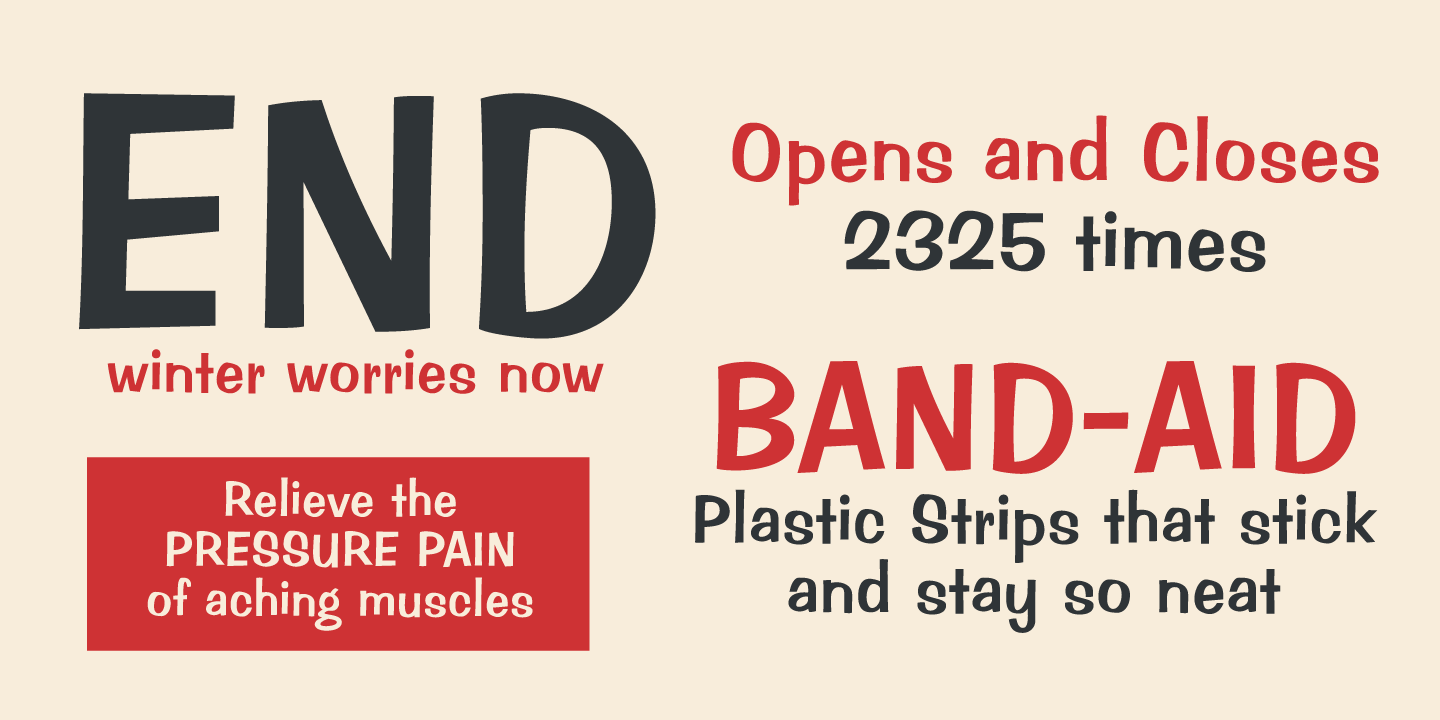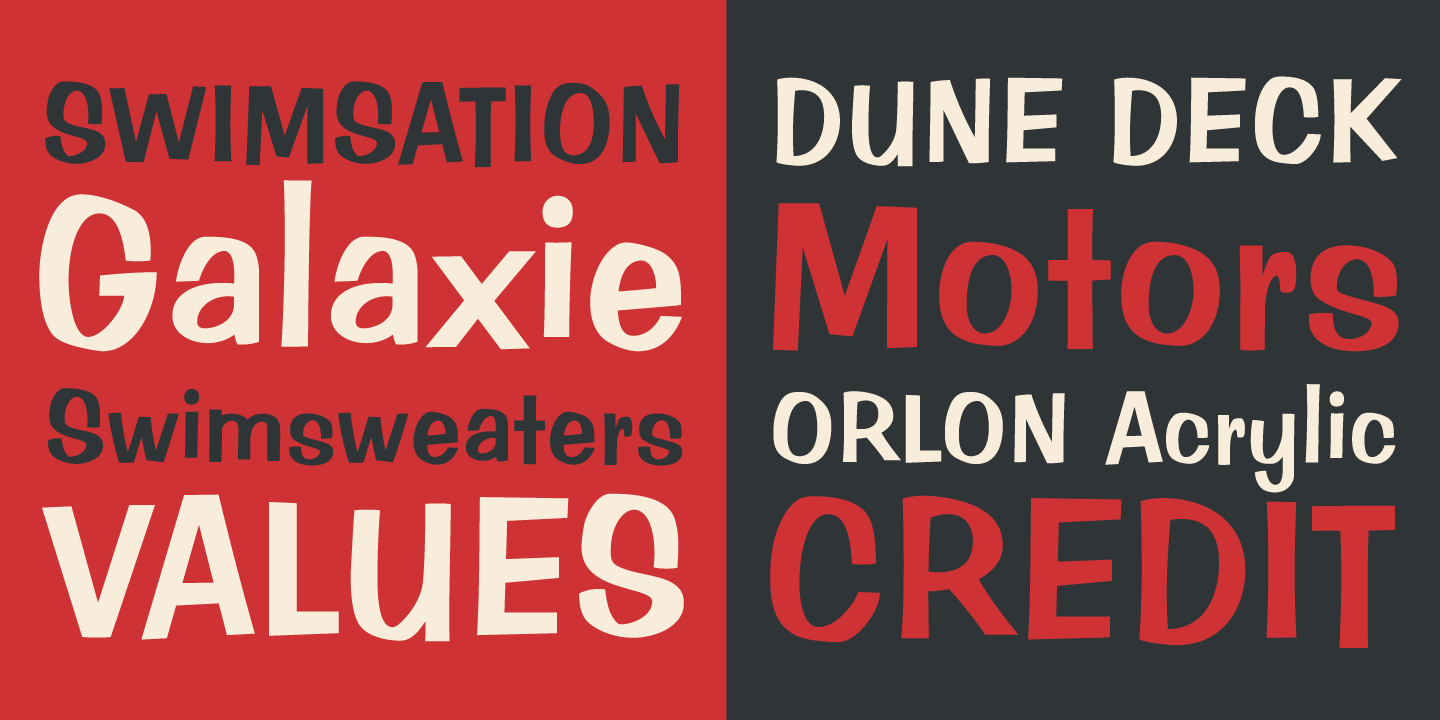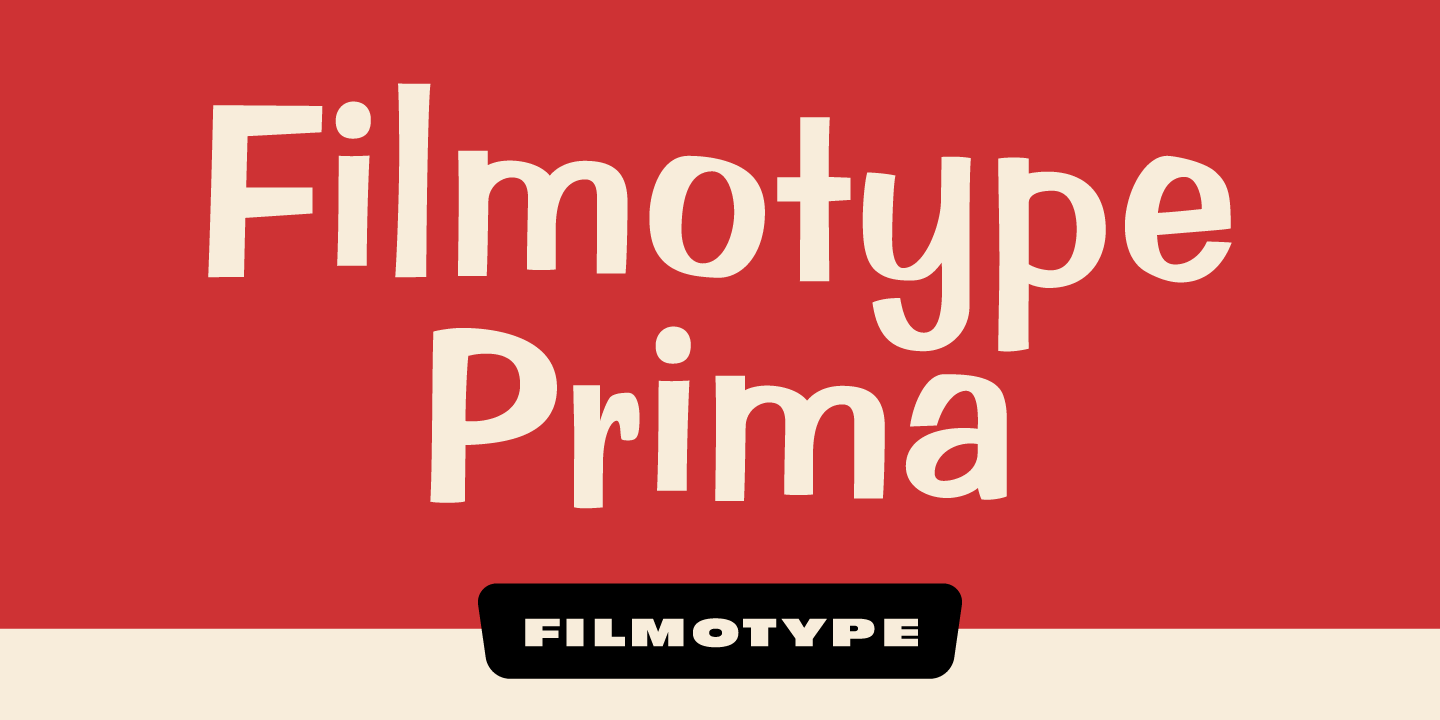
Filmotype Prima
About Filmotype Prima
Initially offered in 1955, Filmotype Prima was one of Filmotype's earliest Free Style typefaces based on popular informal hand-painted lettering styles of sho-card lettering artists of the era. Remastered and expanded with exacting precision from…